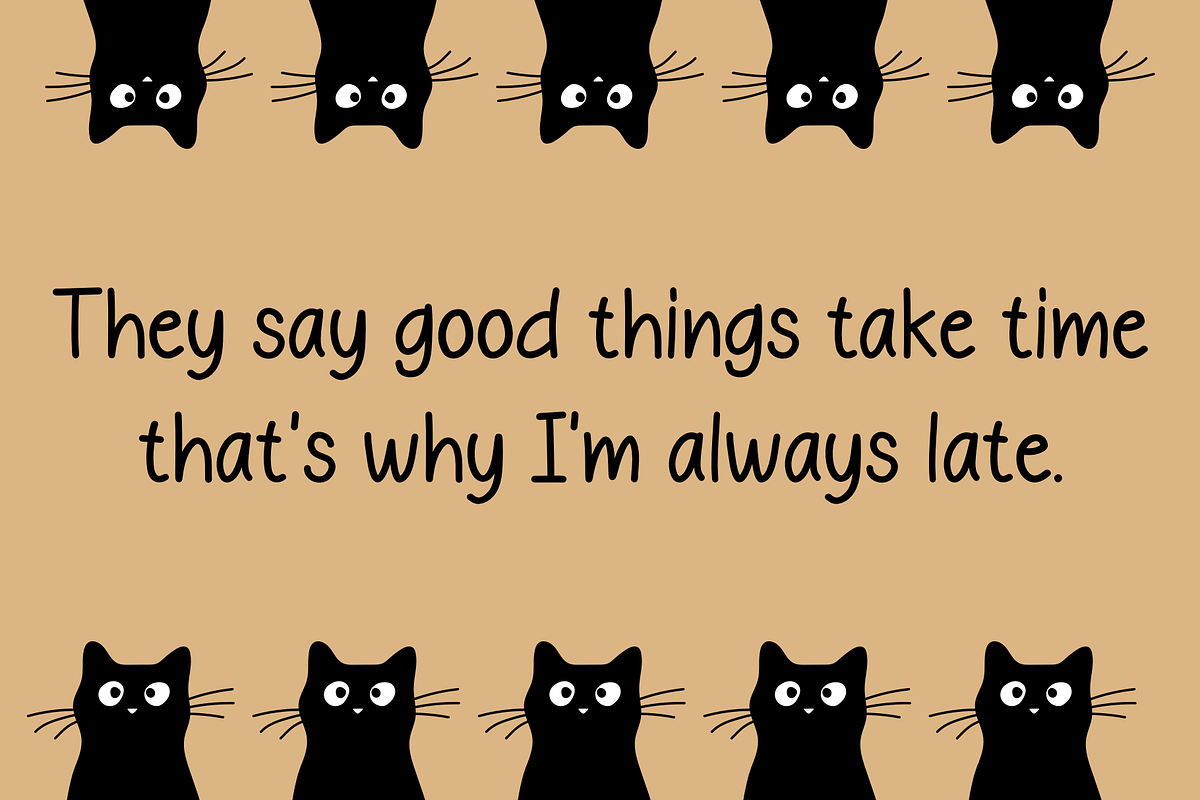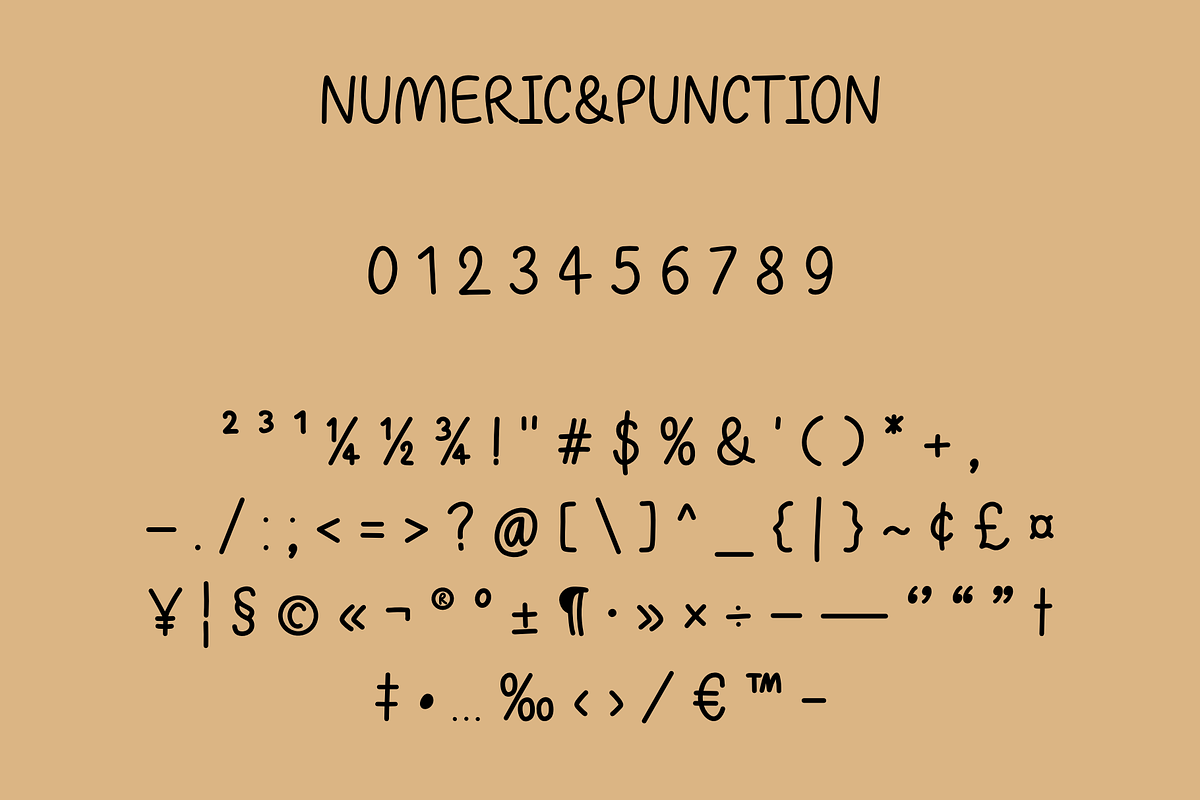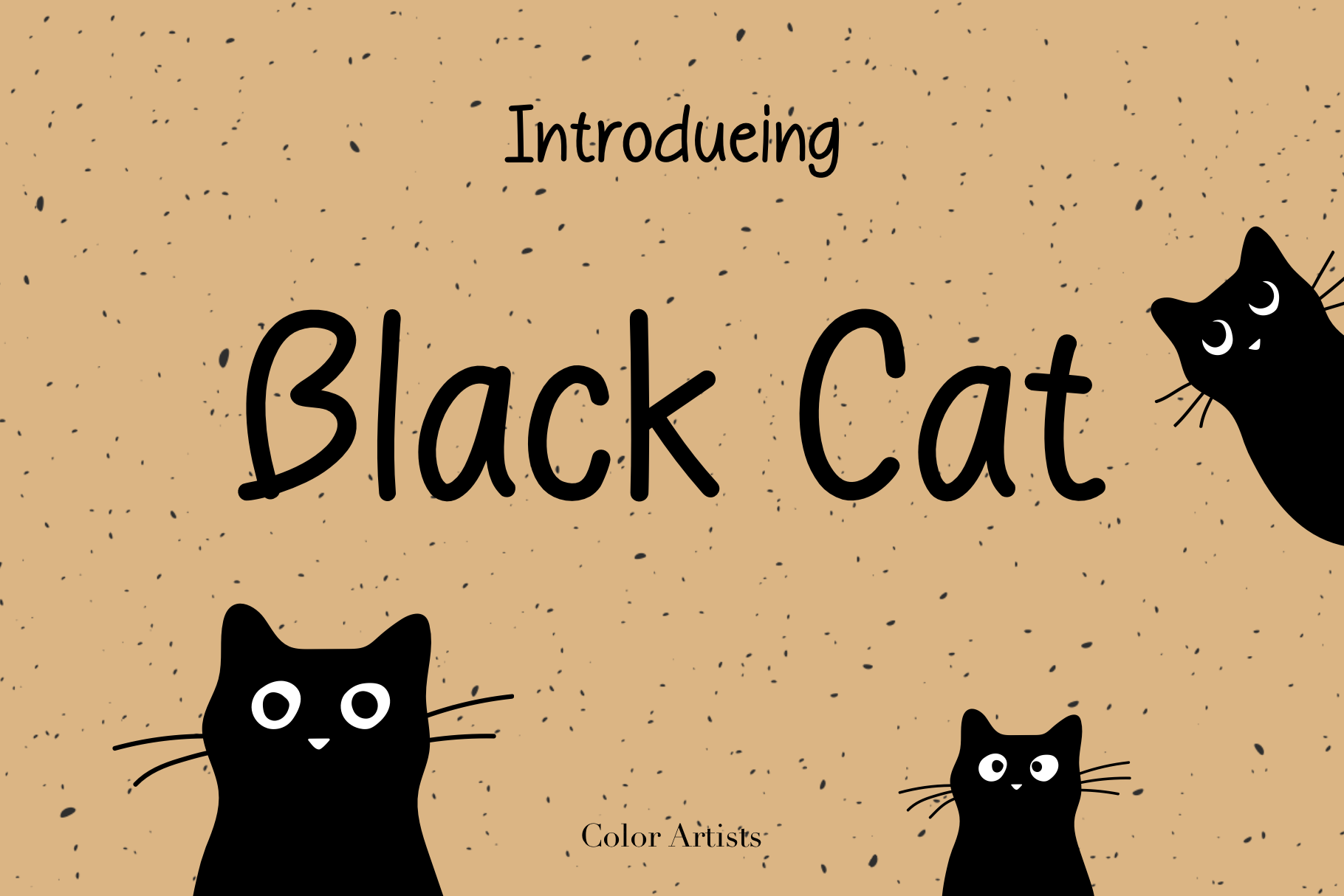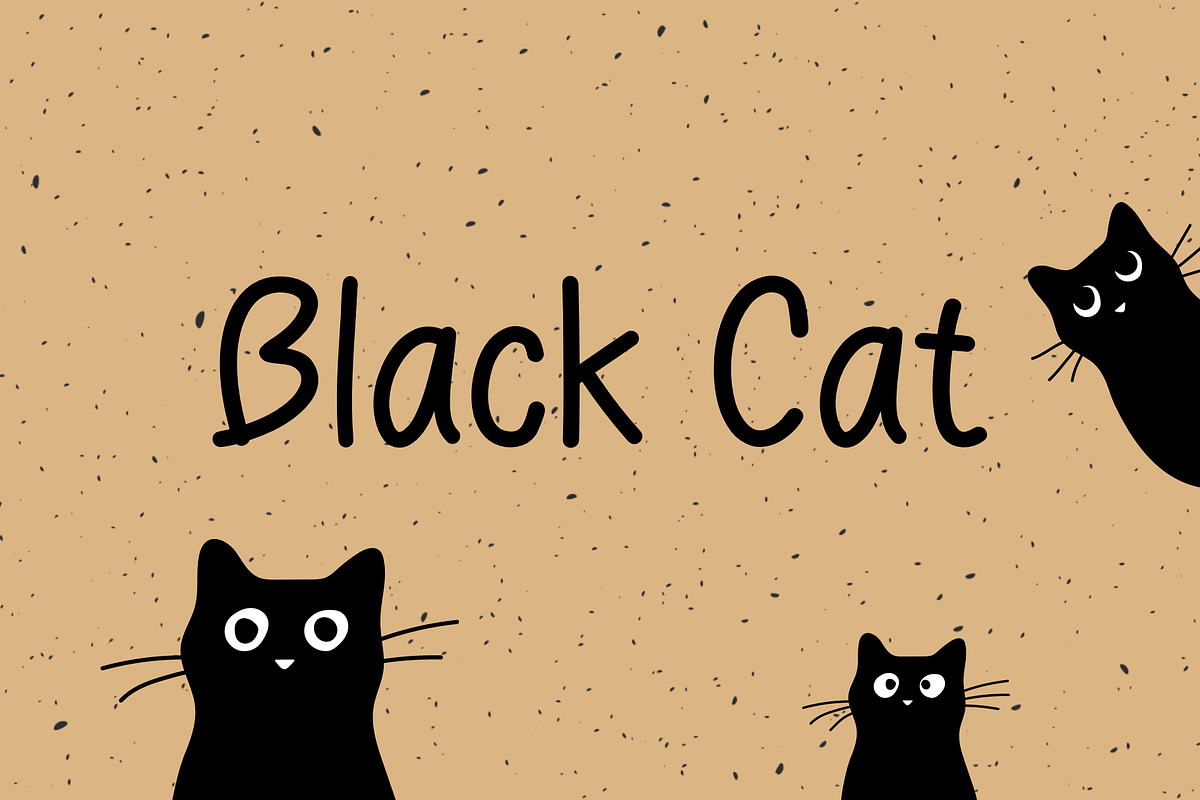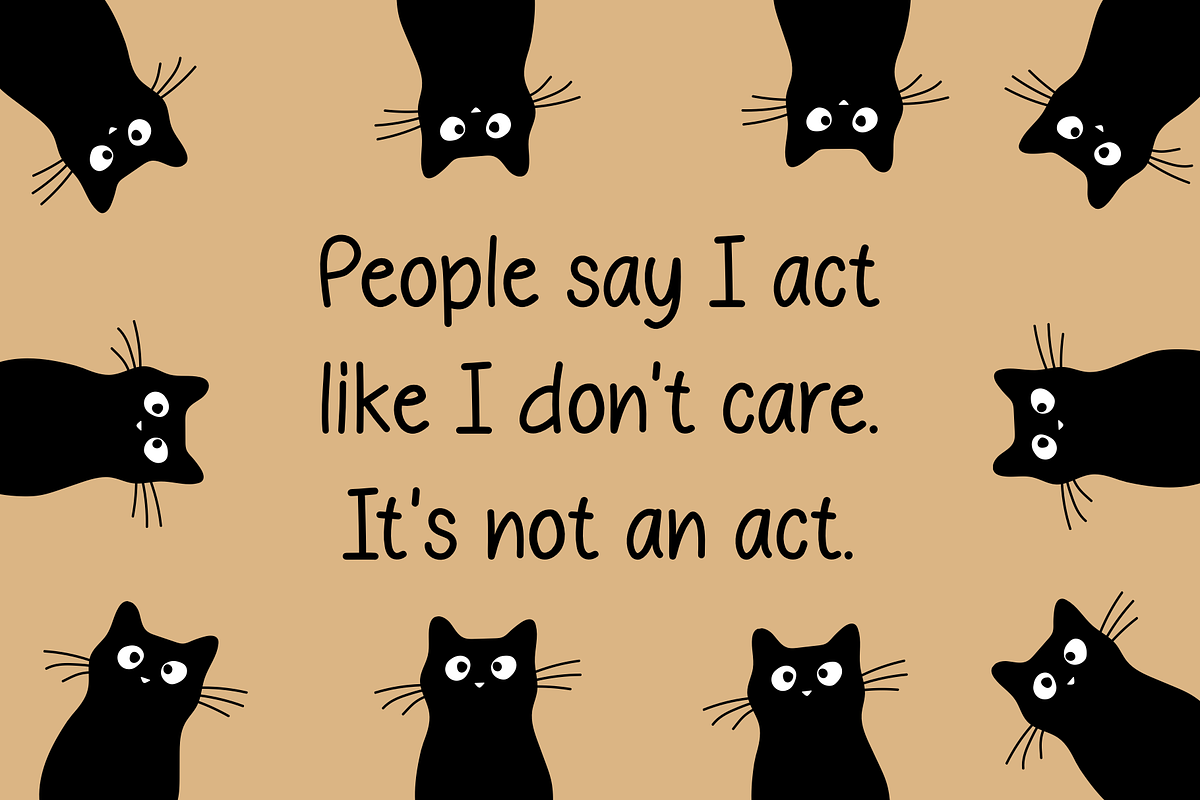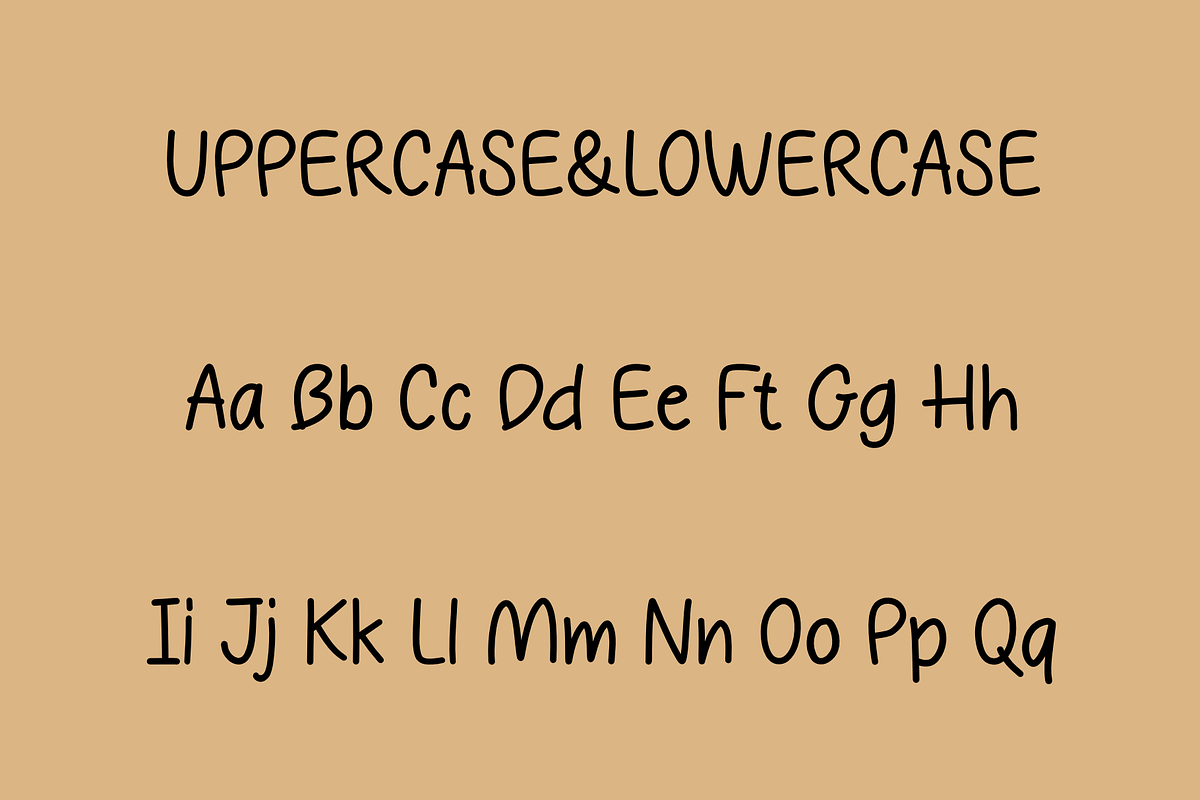
Black Cat Font
Bring a touch of mystique and elegance to your designs with Black Cat font! This beautiful and unique script font is perfect for adding a touch of sophistication to invitations, cards, logos, and more. Its delicate lines and swooping curves create an air of mystery and intrigue, making it perfect for Halloween-themed projects or any design that needs a touch of dark elegance. Whether you're a professional designer or just looking for a new font to spice up your personal projects.